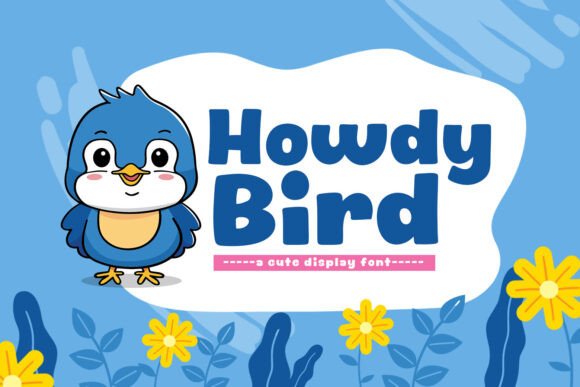
Introducing Howdy Bird Font: The Perfect Addition to Your Typography Collection
Are you tired of using the same old fonts for your design projects? Look no further! Howdy Bird Font is a modern and cute display font that is perfect for adding a touch of personality to your posters, logos, magazines, book covers, banners, and many more. In this article, we’ll take a closer look at the features and benefits of Howdy Bird Font, and explore how it can elevate your designs to the next level.
What is Howdy Bird Font?
Howdy Bird Font is a display font that is designed to make a statement. Its modern and cute design makes it perfect for a wide range of projects, from posters and logos to magazines and book covers. The font is highly versatile and can be used to create a variety of designs, from playful and fun to elegant and sophisticated.
Key Features of Howdy Bird Font
- Modern and Cute Design: Howdy Bird Font has a unique and modern design that is sure to grab attention. Its cute and playful style makes it perfect for designs that require a touch of personality.
- Highly Versatile: The font is highly versatile and can be used for a wide range of projects, including posters, logos, magazines, book covers, banners, and more.
- Easily Readable: Despite its playful design, Howdy Bird Font is highly readable, making it perfect for use in both digital and print designs.
Benefits of Using Howdy Bird Font
So, why should you choose Howdy Bird Font for your design projects? Here are just a few benefits of using this amazing font:
- Adds Personality to Your Designs: Howdy Bird Font adds a touch of personality to your designs, making them stand out from the crowd.
- Perfect for Branding and Marketing Materials: The font is perfect for use in branding and marketing materials, such as logos, posters, and flyers.
- Increases Readability: The font’s highly readable design makes it perfect for use in digital and print designs, increasing the chances of your message being read and understood.
How to Use Howdy Bird Font
Using Howdy Bird Font is easy! Here are a few tips to get you started:
- Use it for Headings and Titles: The font is perfect for use in headings and titles, adding a touch of personality to your designs.
- Pair it with Other Fonts: Howdy Bird Font can be paired with other fonts to create a unique and interesting design.
- Experiment with Different Sizes and Colors: The font can be used in a variety of sizes and colors, so don’t be afraid to experiment and find the perfect combination for your design.
Project Ideas Using Howdy Bird Font
So, what can you create with Howdy Bird Font? Here are a few project ideas to get you started:
- Posters and Flyers: The font is perfect for use in posters and flyers, adding a touch of personality to your marketing materials.
- Logos and Branding Materials: Howdy Bird Font can be used to create unique and memorable logos and branding materials.
- Magazines and Book Covers: The font is perfect for use in magazines and book covers, adding a touch of personality to your publication.
- Banners and Signs: Howdy Bird Font can be used to create eye-catching banners and signs that are sure to grab attention.
In conclusion, Howdy Bird Font is a modern and cute display font that is perfect for adding a touch of personality to your designs. Its highly versatile design makes it perfect for use in a wide range of projects, from posters and logos to magazines and book covers. With its easy-to-use design and compatibility with a wide range of software, Howdy Bird Font is the perfect addition to your typography collection.